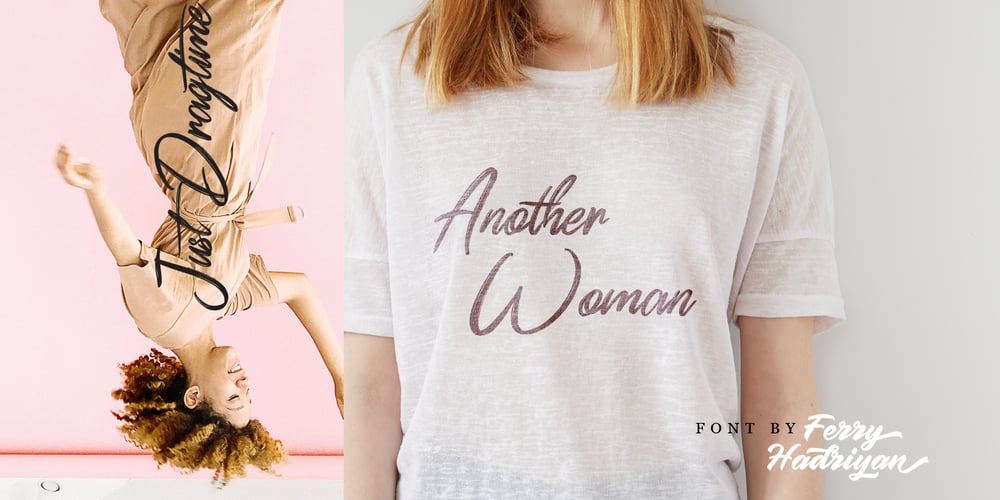
Dragtime Font Family was designed by Ferry Hadriyan and published by FHFont. Dragtime contains 1 styles and family package options. Dragtime is handwritten script font with signature style. Suitable for design, element design, wedding, event, t-shirt, logo, badges, sticker, and awesome work, and many more.